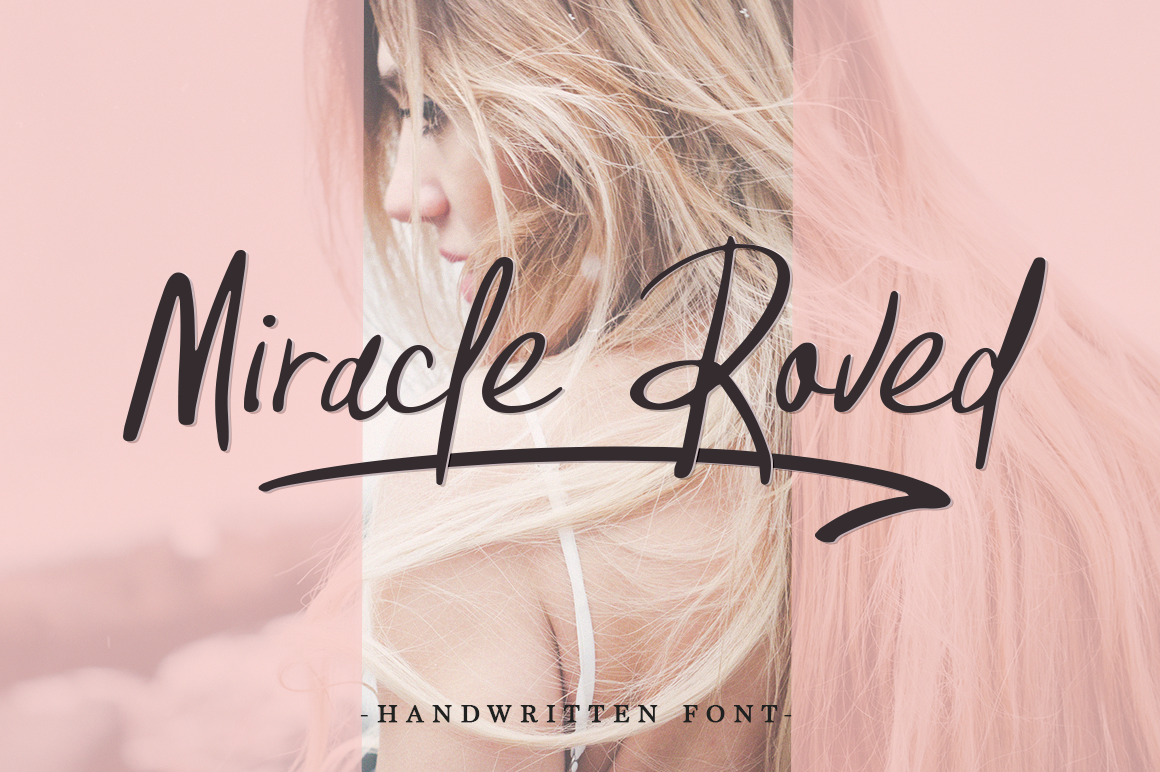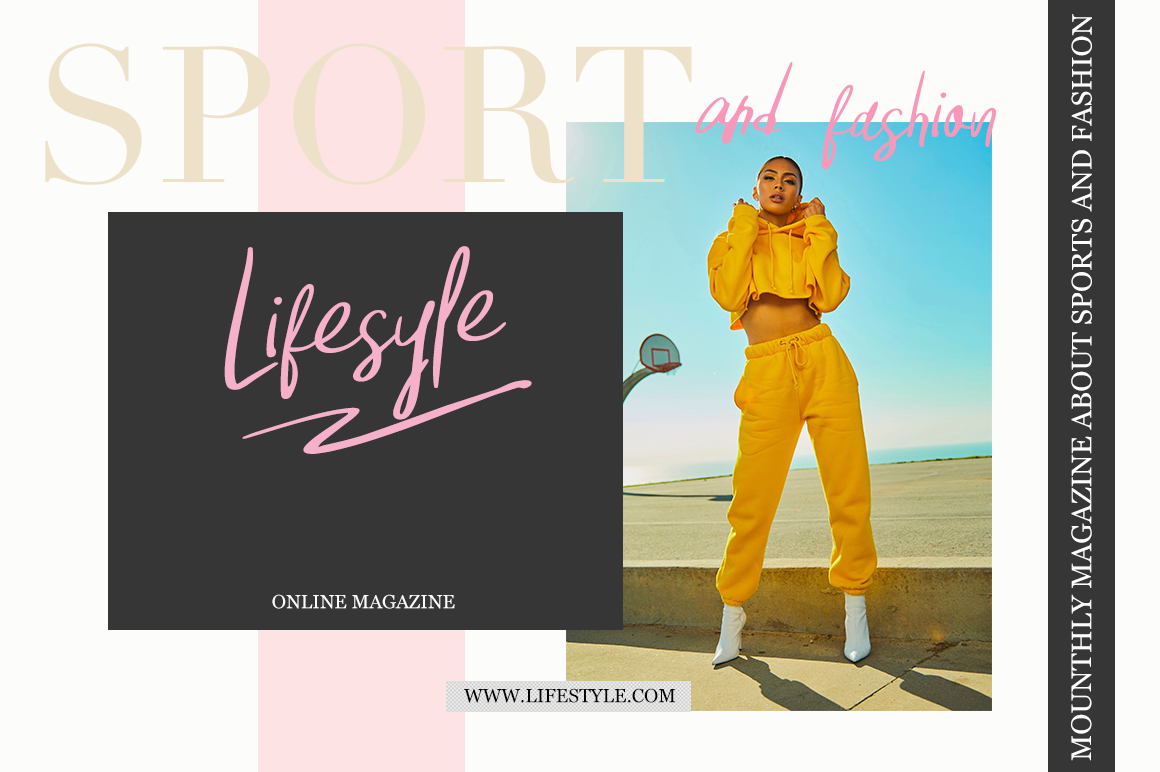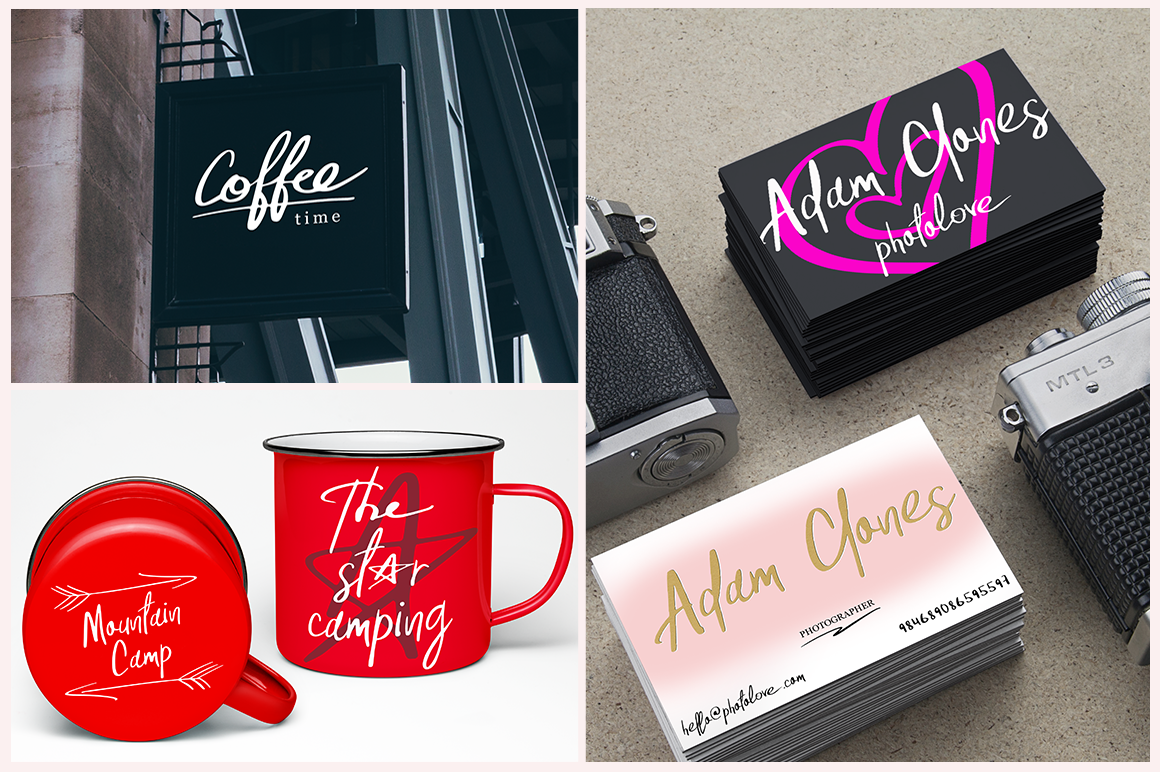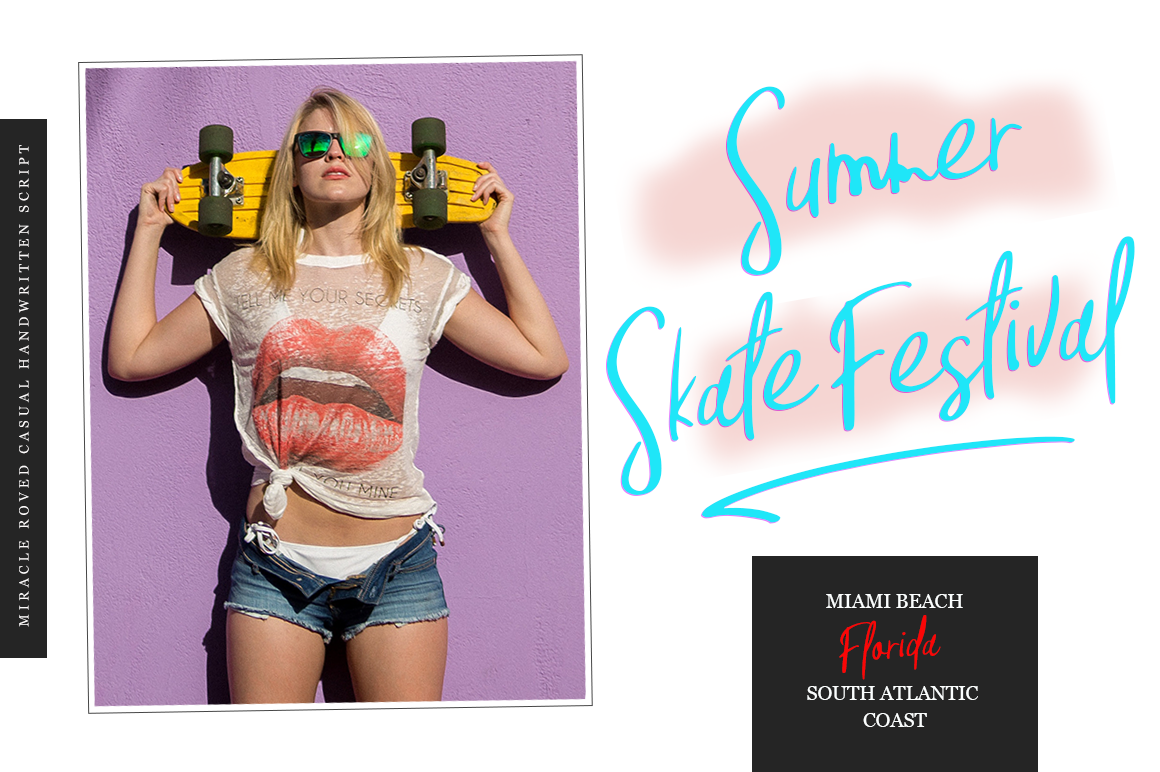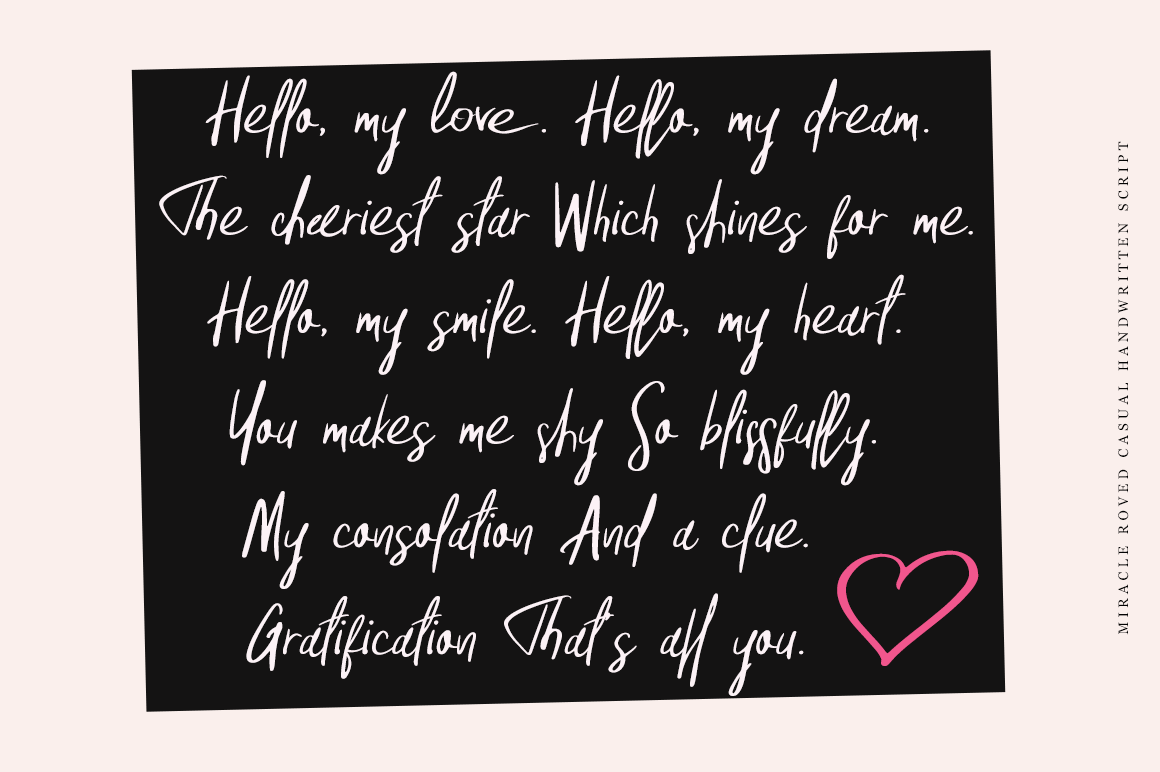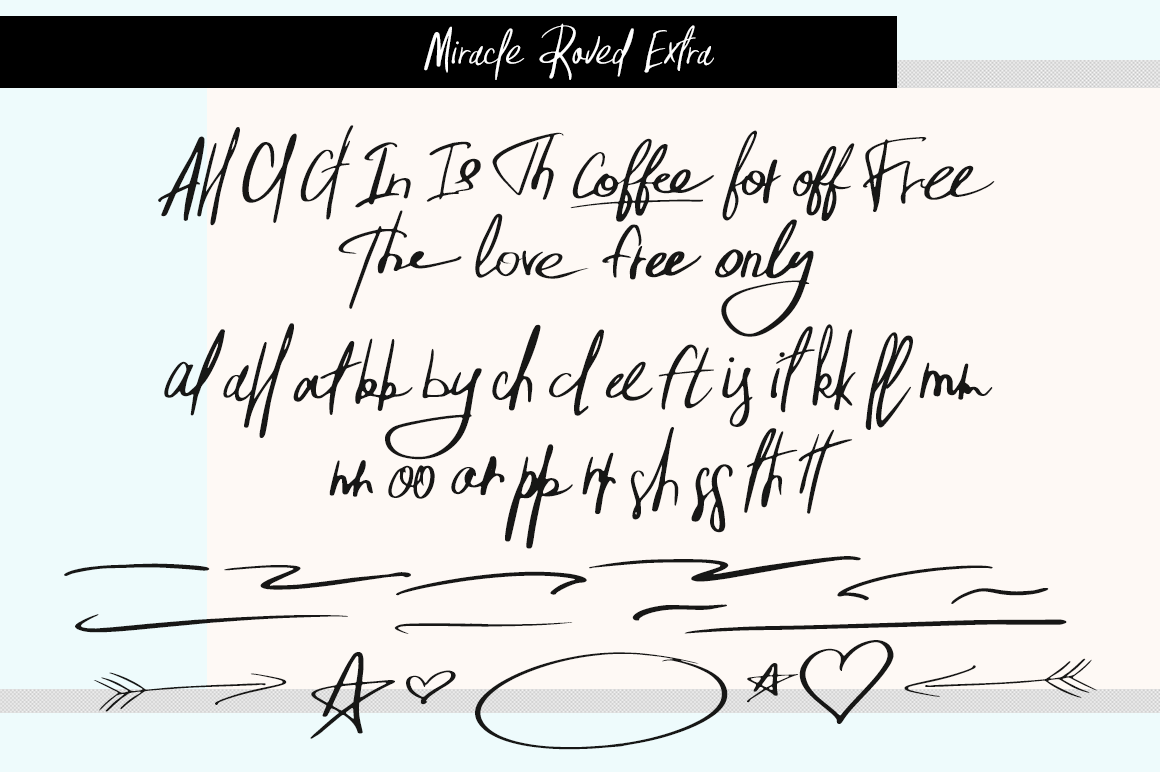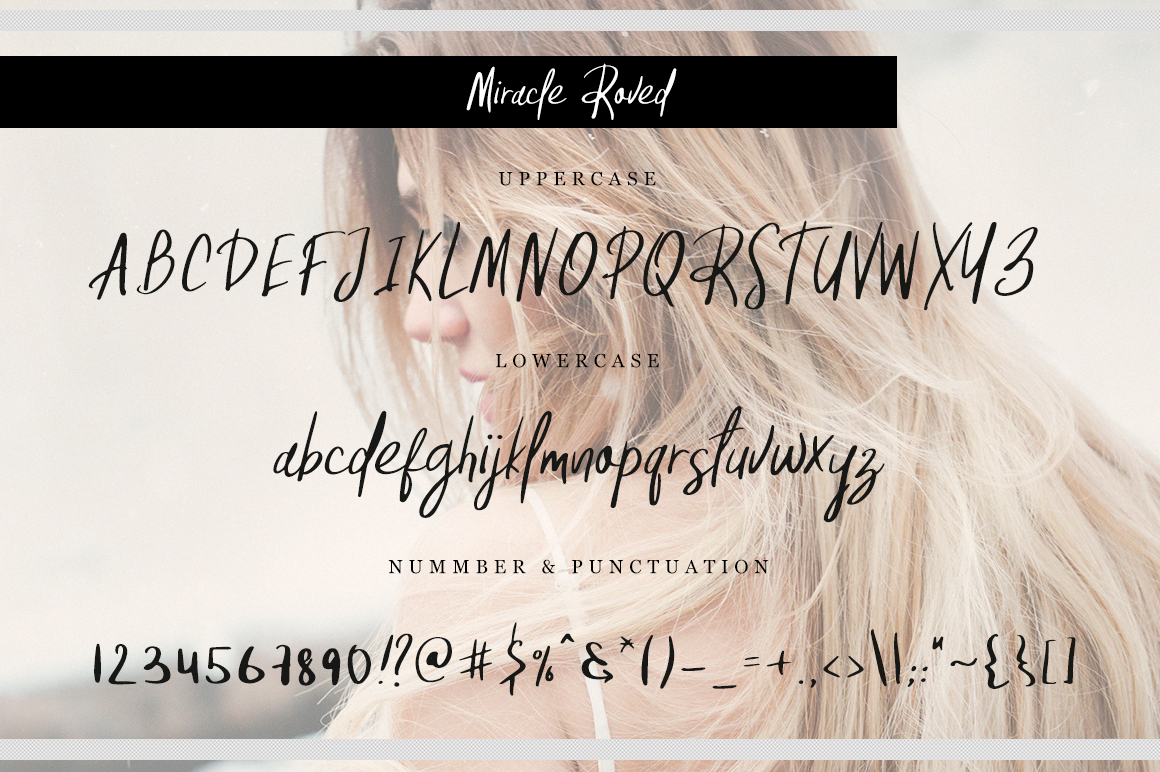
Miracle Roved Font
About Miracle Roved Font
Miracle Roved is a casual and relaxed script font, handwritten to give your typography projects a fun and laid-back feel without skimping on style. This handwritten font is ideal for communicating a relaxed yet fashionable vibe.